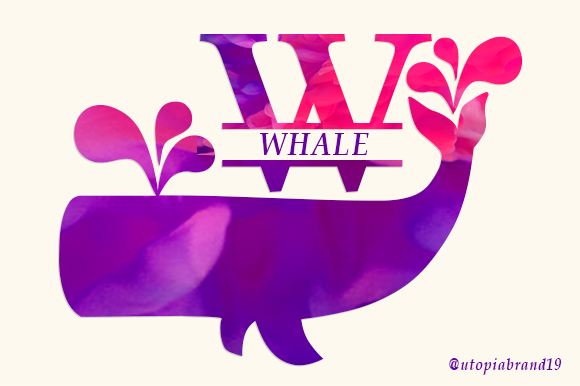
Whale Monogram Font
In a world saturated with monotonous fonts, the Whale Monogram Font emerges as an enchanting oasis of creativity, inviting you to embark on a journey of design exploration. This captivating decorative font captures the essence of beauty and elegance, whispering tales of sophistication and charm. Its unique design dances across your screen, like a playful whale frolicking in the ocean of imagination.
As you delve into the depths of the Whale Monogram Font, you'll discover a treasure trove of possibilities. Whether you're a seasoned designer seeking inspiration or a novice eager to make a statement, this font will ignite your passion and elevate your creations. With its flowing lines, delicate curves, and intricate details, it transforms ordinary words into captivating works of art.
Imagine the allure of your cosmetics brand adorned with the grace of the Whale Monogram Font. Its enchanting characters will cast a spell on your customers, drawing them into a world of luxury and refinement. This font will elevate your brand's identity, making it unforgettable and irresistible. It's the perfect choice for creating captivating logos, alluring packaging designs, and enchanting marketing materials that leave a lasting impression.
Step into the realm of creativity and let the Whale Monogram Font guide you. Its versatile nature lends itself to a symphony of design possibilities. Craft exquisite invitations that transport your guests to a world of elegance. Create stunning stationary art that reflects your impeccable taste. Design eye-catching social media posts that captivate your audience and leave them yearning for more. And when the time comes to express your heartfelt greetings, let the Whale Monogram Font dance across your greeting cards, carrying your warm wishes with a touch of magic.
With the Whale Monogram Font as your creative companion, you'll embark on a journey of self-expression and boundless inspiration. Its enchanting aura will infuse your designs with a touch of whimsy, leaving your audience spellbound. It's more than just a font; it's an artistic masterpiece waiting to be unleashed upon the world.
So, dive into the depths of the Whale Monogram Font and awaken your creative spirit. Let its beauty ignite your imagination and transform your designs into captivating works of art. Experience the joy of creating with a font that speaks to your soul and leaves a trail of enchantment in its wake.